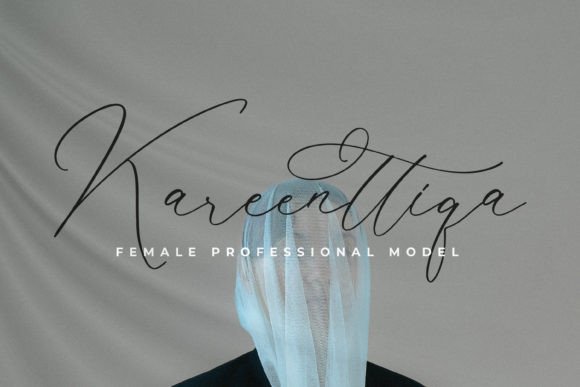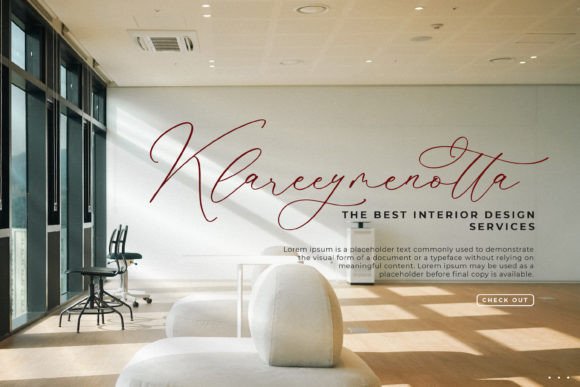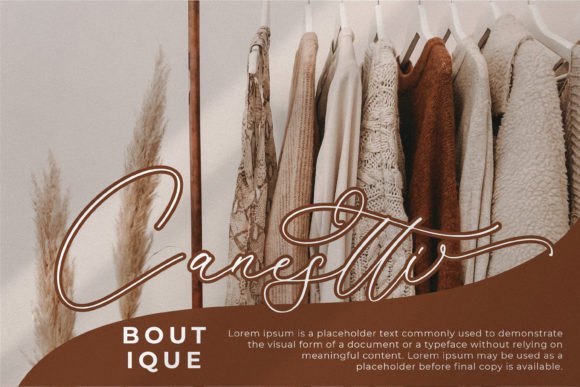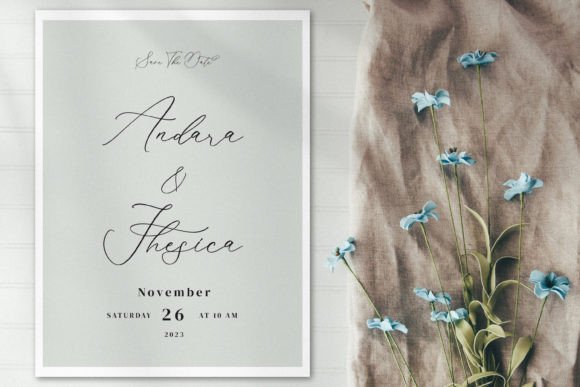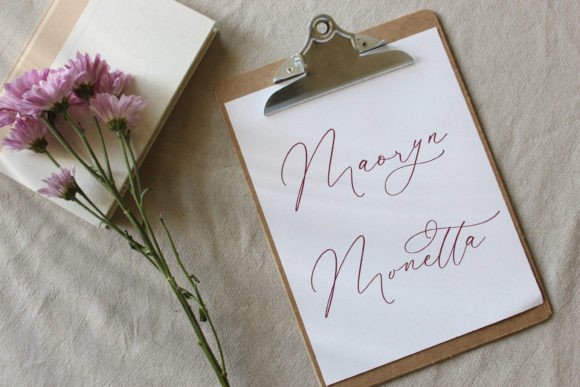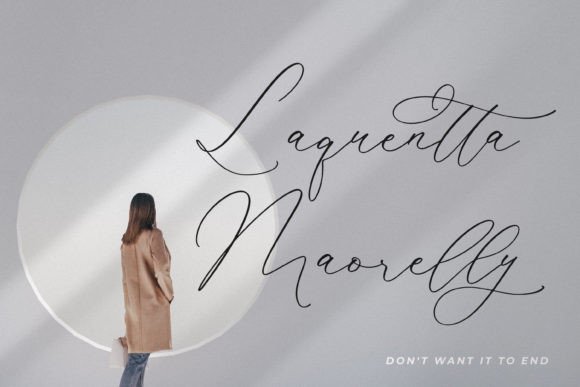
Introduction to Lucimaretta Font
Have you ever been stuck in a creative rut, staring at a blank page or screen, desperately searching for the perfect font to elevate your design project? We’ve all been there. But what if you stumbled upon a font that not only captures your vision but also adds a touch of sophistication and elegance to your work? For designers, finding the right font can be a game-changer, and that’s exactly what the Lucimaretta Font offers.
Whether you’re working on a high-end branding project, creating a set of luxury homewares designs, or crafting a special event invitation, the Lucimaretta Font is the perfect design resource to take your project to the next level. With its high-quality, elegant script, this font is sure to impress, and with a transparent background, you can easily layer it over any design element.
Key Features of Lucimaretta Font
- High-quality design resource suitable for creative projects, offering a unique and elegant touch.
- Features a transparent background, allowing for easy integration with different design elements.
- Designed with a high-resolution quality, ideal for use in professional and personal projects.
- Comes in a single weight, making it versatile for a wide range of design applications.
Honest Review: Lucimaretta Font
I recently stumbled upon the Lucimaretta Font and I must say it’s a lovely addition to any creative project. This free download is perfect for designers who want to add a touch of elegance to their designs.
What works well with the Lucimaretta Font is its high quality and versatility. It comes with a transparent background, making it easy to overlay on any design element. The font’s elegant script style is perfect for creating a sophisticated look.
- High-quality, elegant script style
- Transparent background for easy overlay
- Perfect for creative projects, design resources, and more
However, there are a few limitations to keep in mind ⚠️. The font is only available in a few weights, which might limit its use in certain design scenarios. Additionally, the font’s design might not be suitable for all types of projects.
Overall, I think the Lucimaretta Font is a great resource for designers who want to add a touch of elegance to their designs. With its high quality and versatility, it’s definitely worth checking out.
The Lucimaretta Font is perfect for designing invitations, posters, and social media graphics. Its high-quality design and transparent background make it an ideal choice for creative projects requiring intricate details and layered designs.
Does the Lucimaretta Font have a transparent background?
Yes, the Lucimaretta Font has a transparent background, making it easy to use in designs with complex backgrounds or images. This feature allows designers to create visually appealing and cohesive designs.